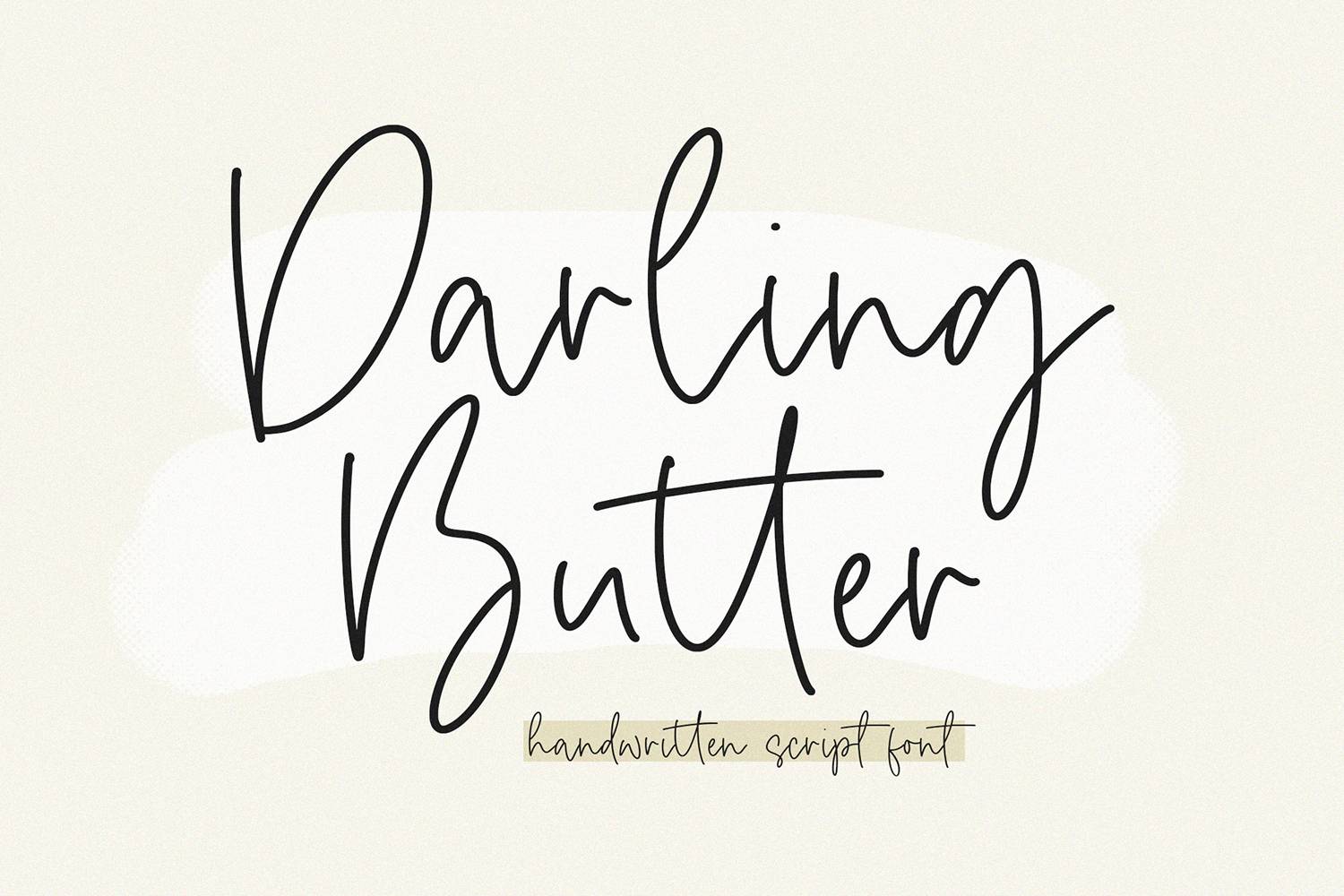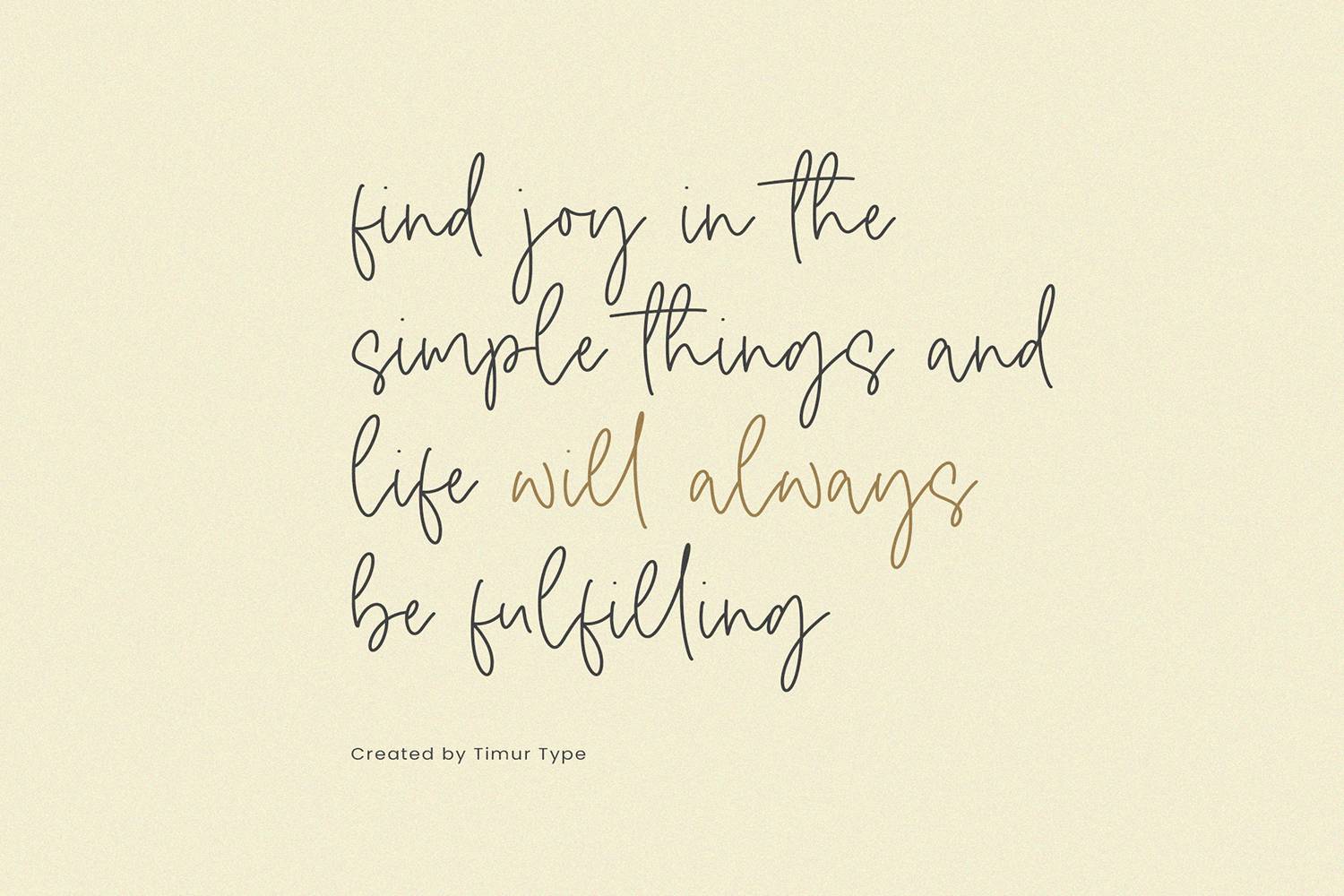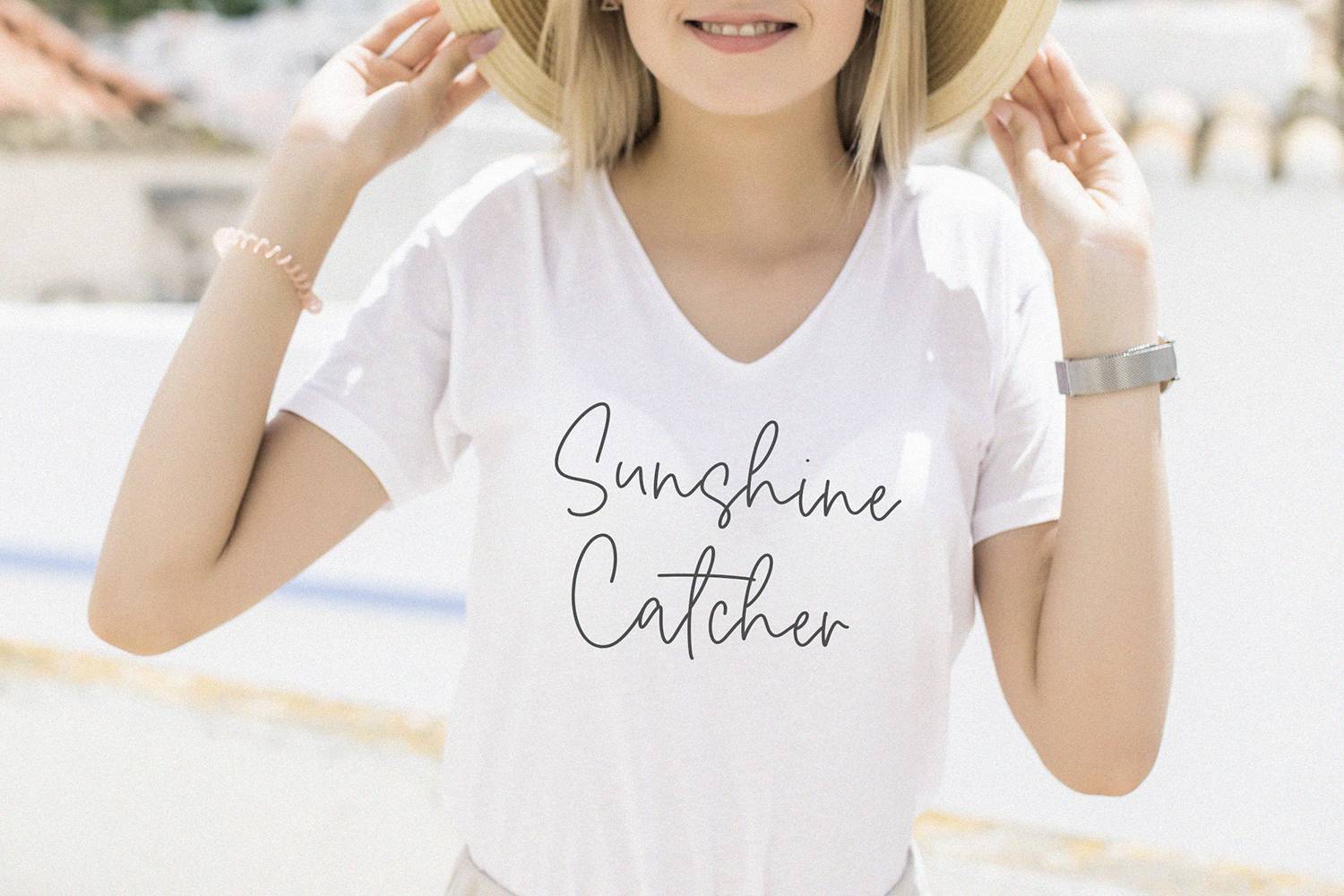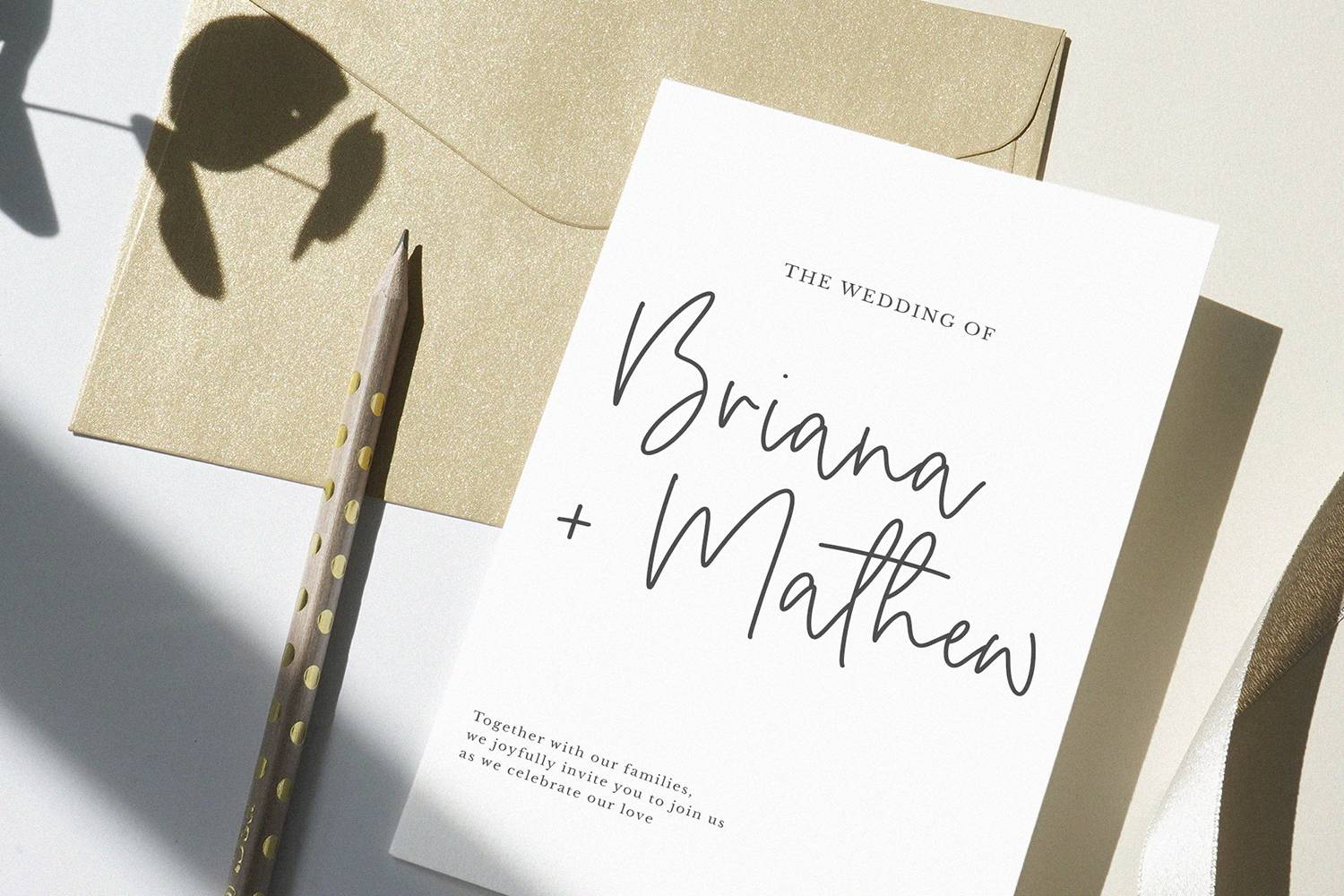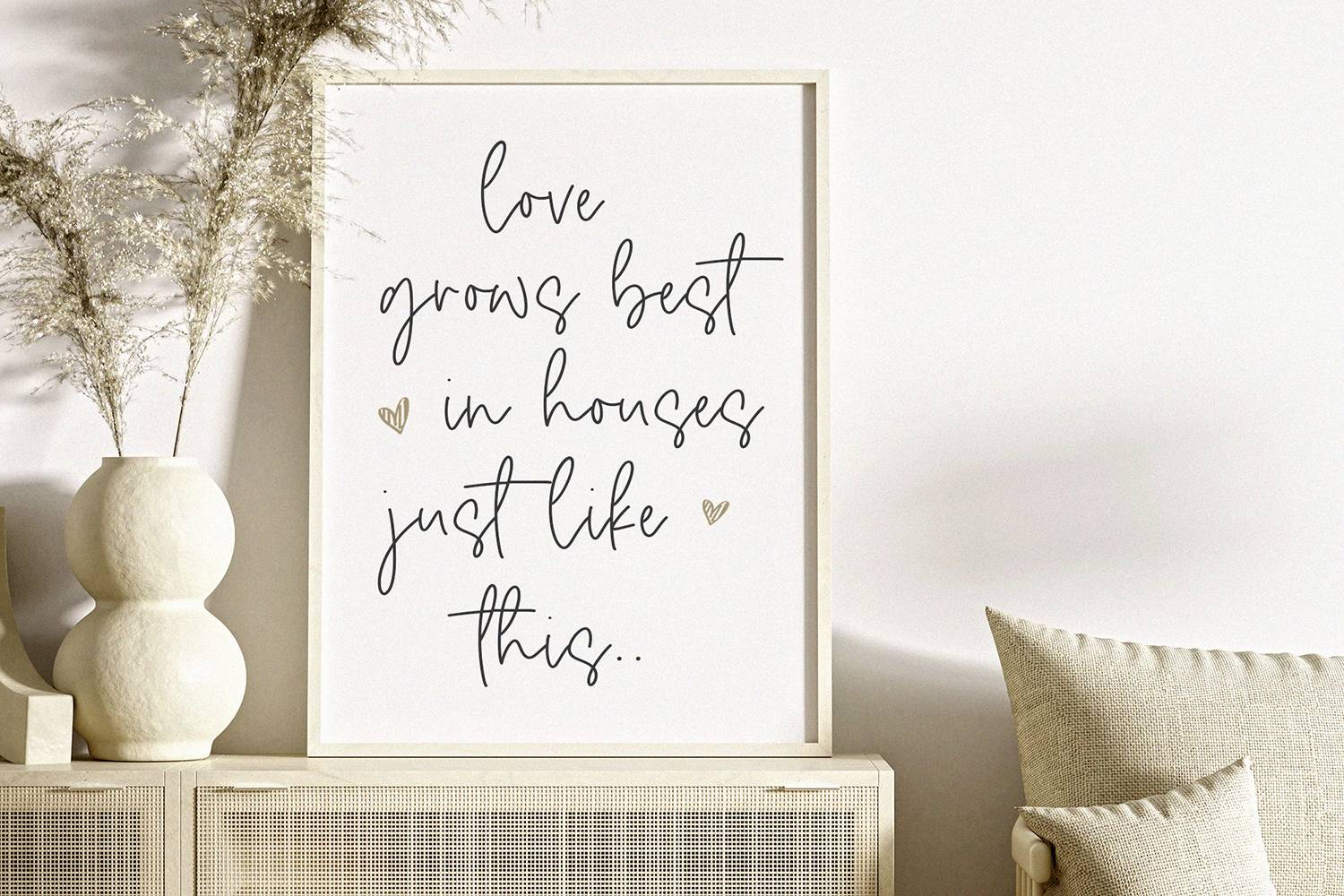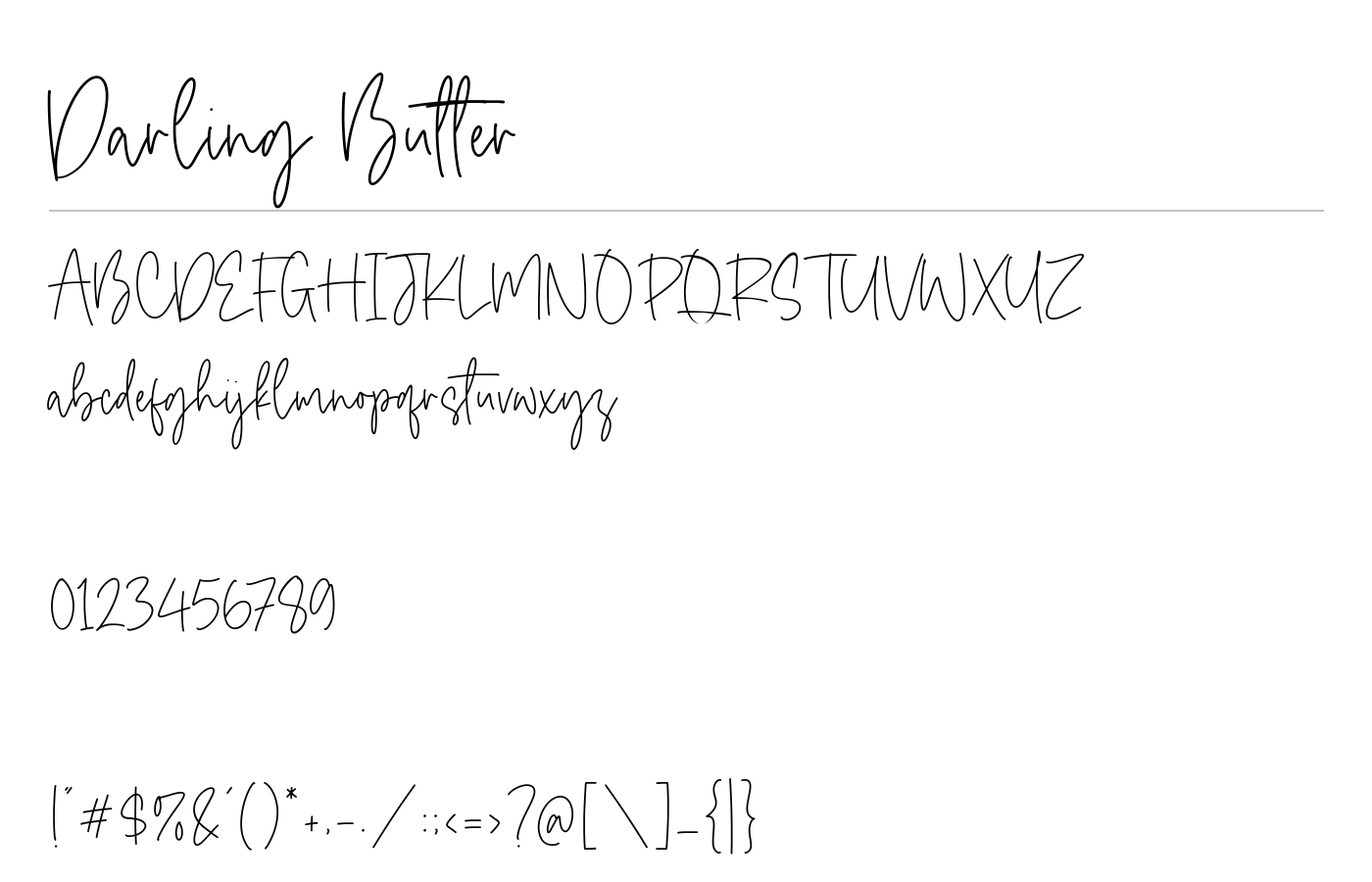
Darling Butter is a delicate, handwritten script font that exudes a casual and charming personality with its tall, slender letterforms and playful loops. Its light, airy strokes and slightly quirky styling make it perfect for personal branding, invitations, or creative projects that want to convey warmth and approachability. This font shines in designs that benefit from a friendly, informal touch, such as social media graphics, greeting cards, and feminine lifestyle branding.
Darling Butter Font
About Darling Butter Font